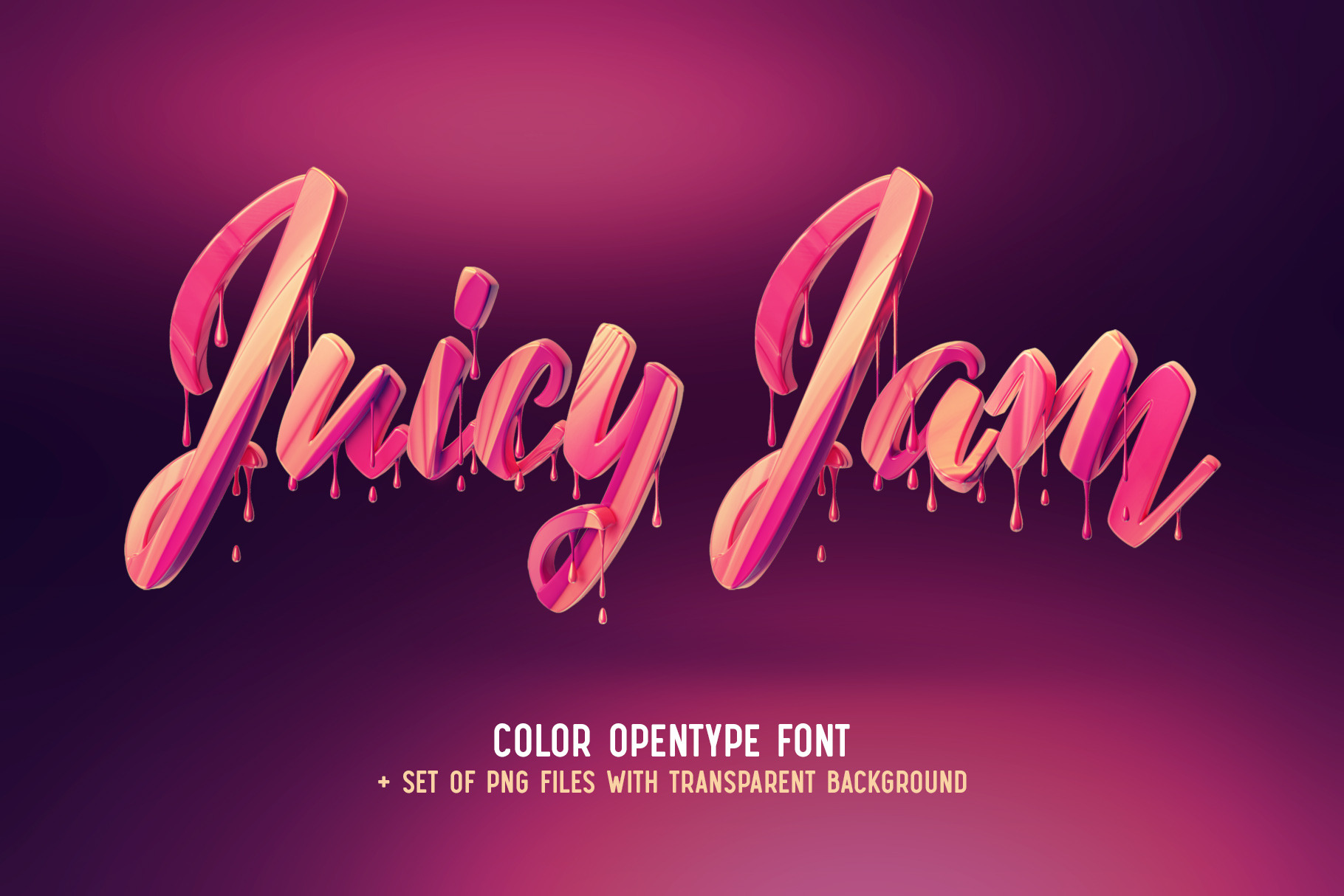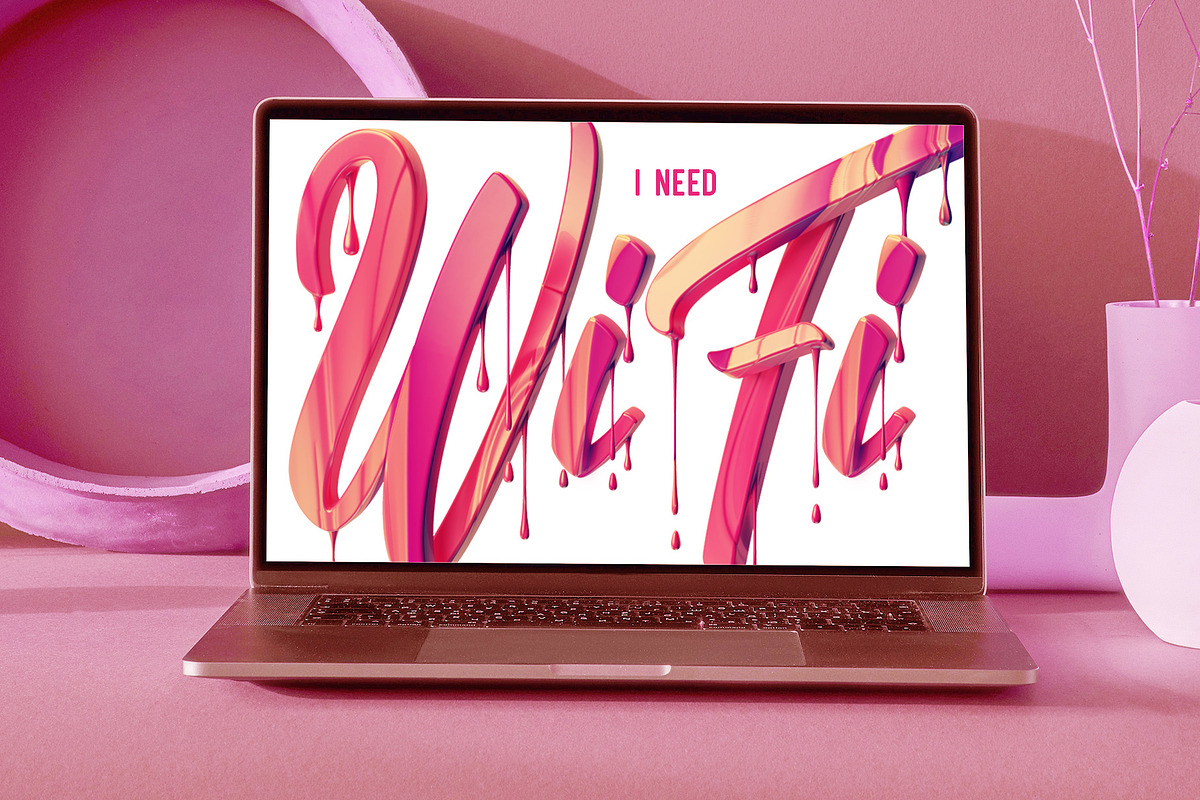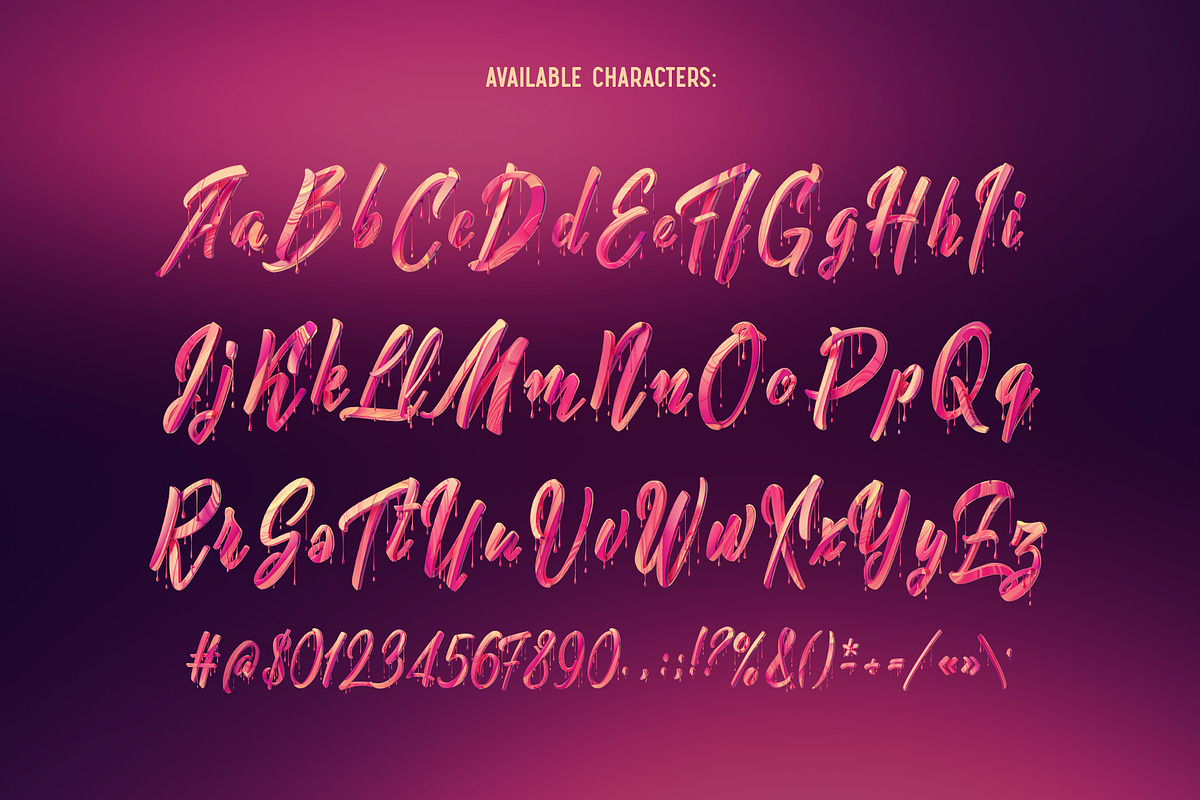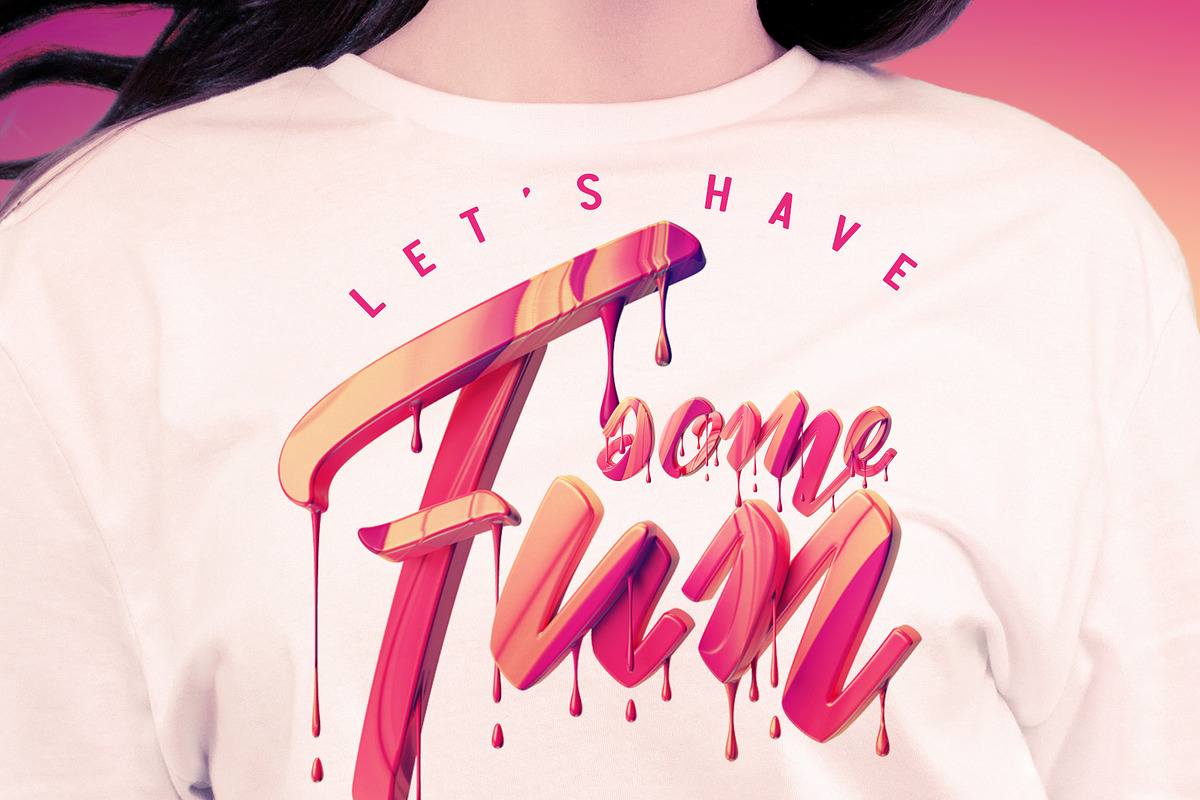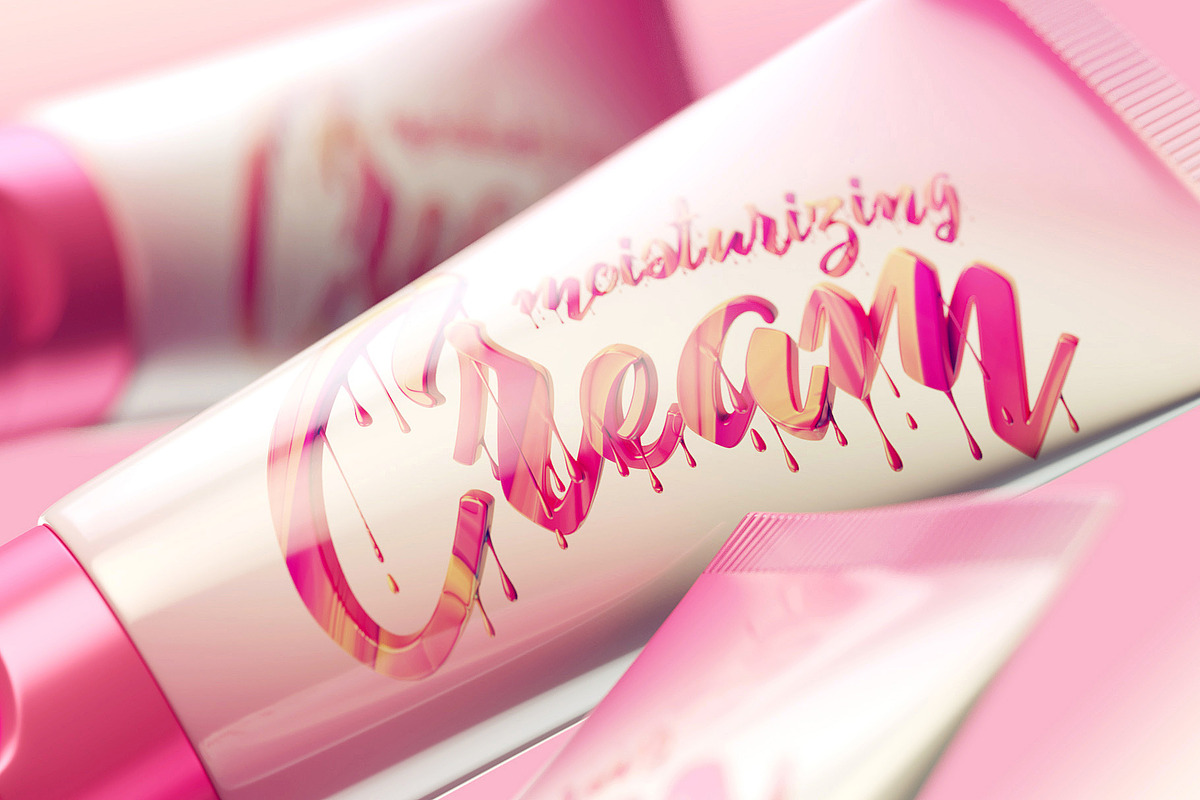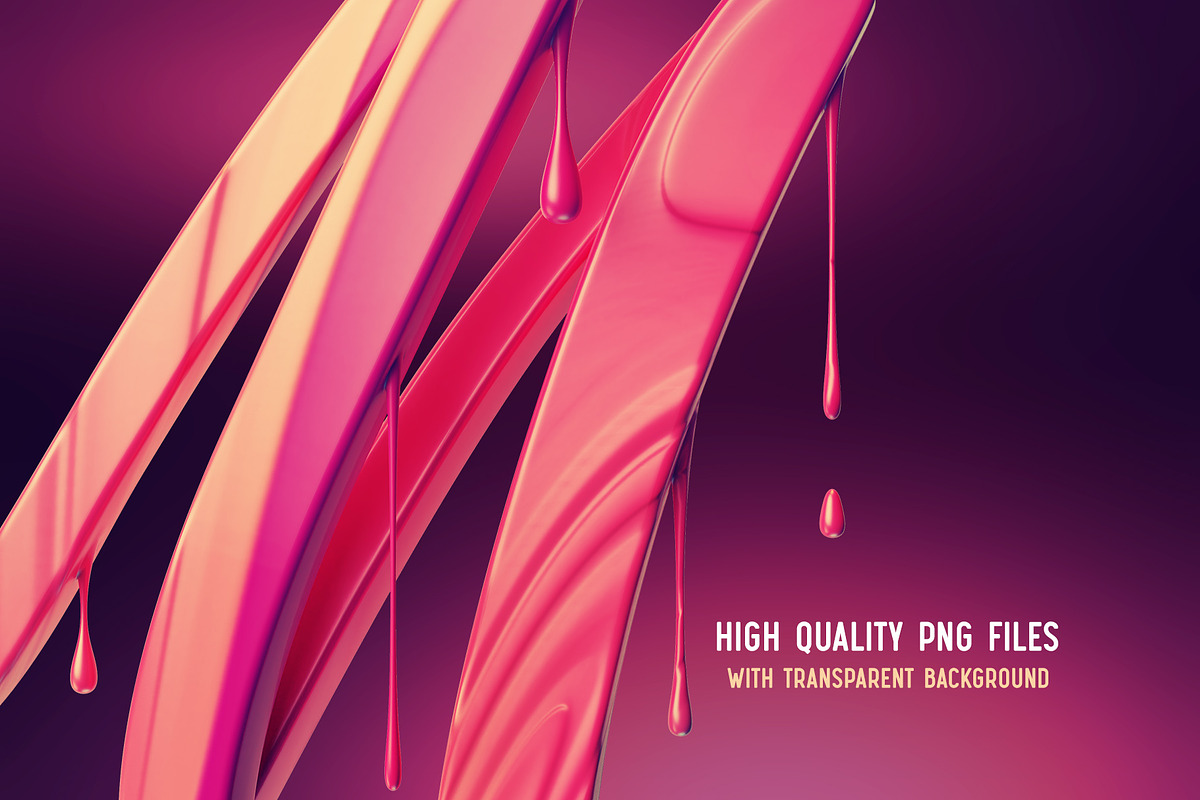
Juicy Jam – Color Bitmap Font
Hello! Presenting a colorful font set – Juicy Jam. It's a 3d rendered high quality typeface based on a smooth calligraphic script. Juicy Jam font has a nice dripping effect with a sweet pink texture. First of all it's a color bitmap OpenType-SVG font that can be used as a usual OTF font. Also a set of full resolution PNG files with transparent background is included.
P.S: Only English language and basic punctuation is supported, please check out the screenshot with all available characters.